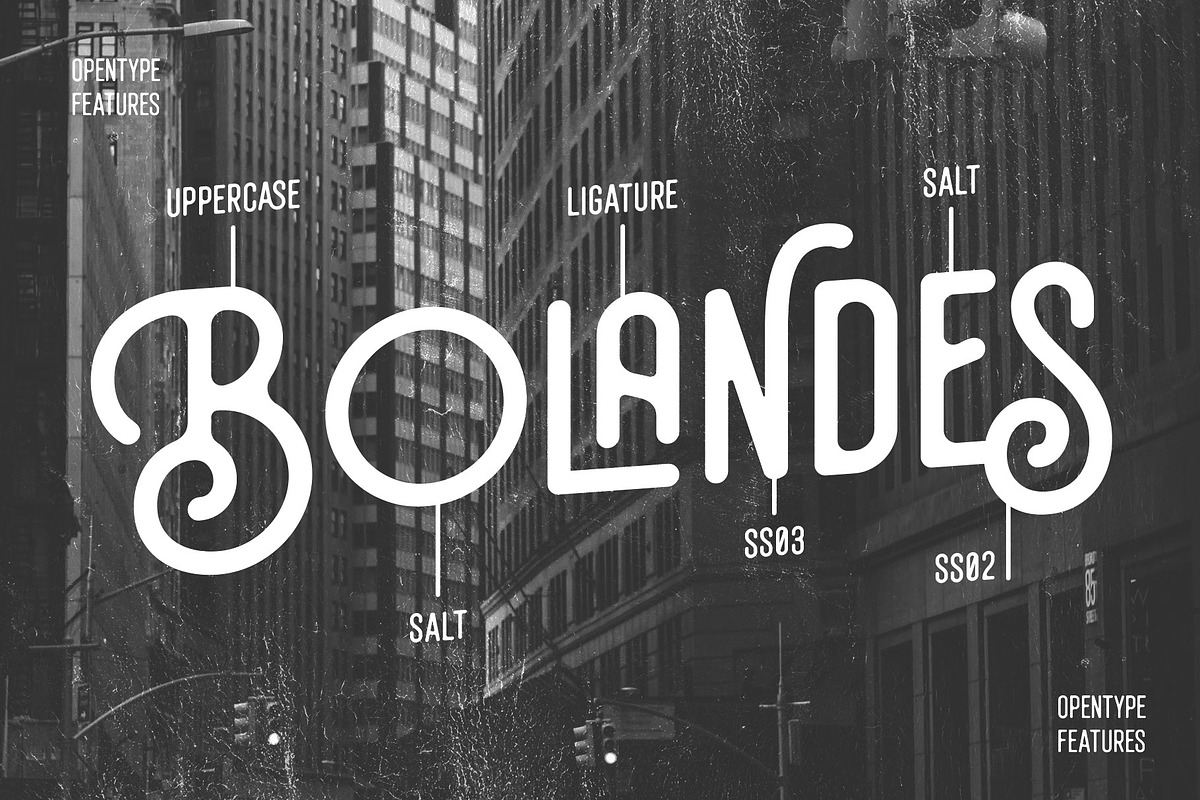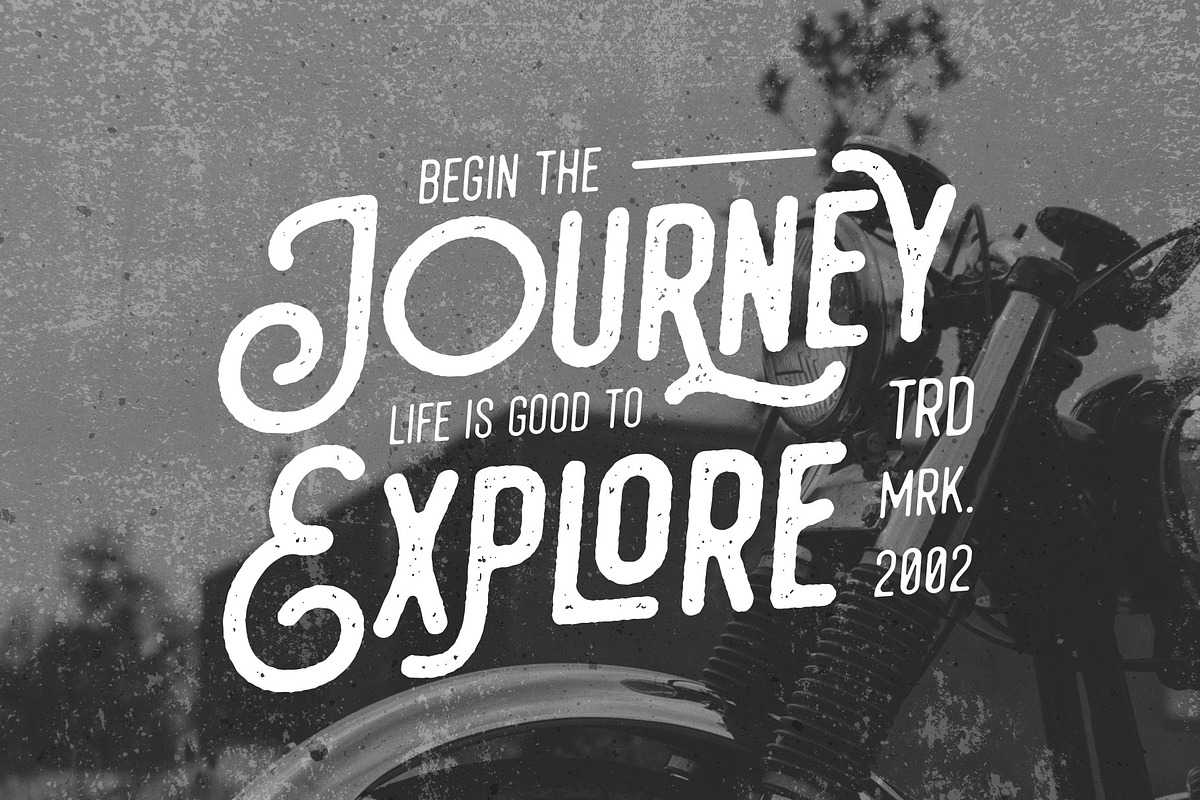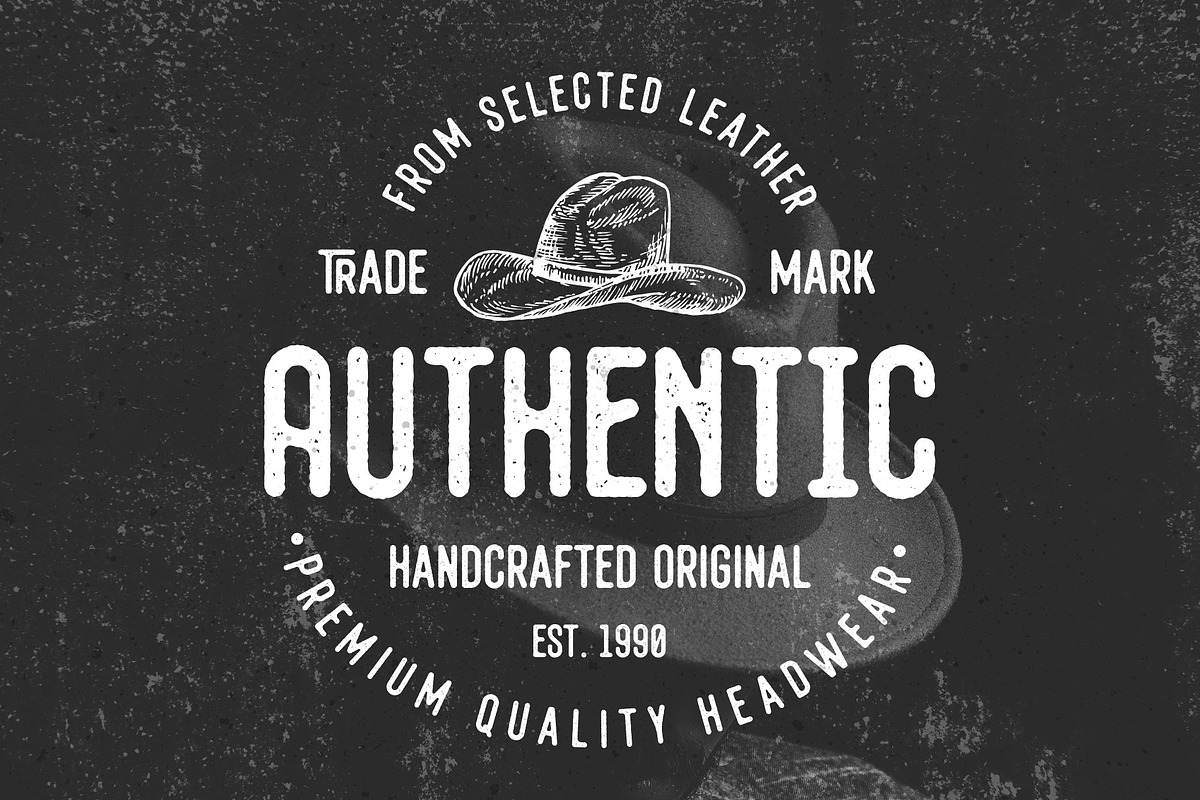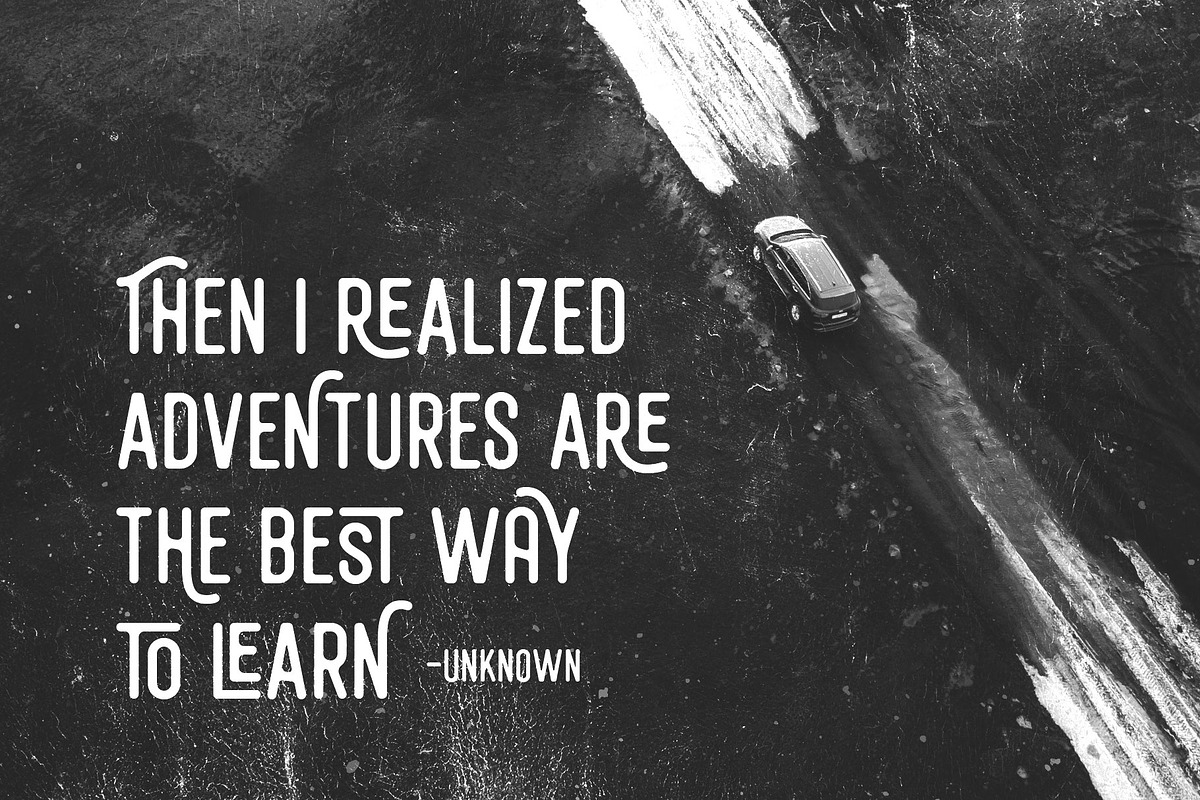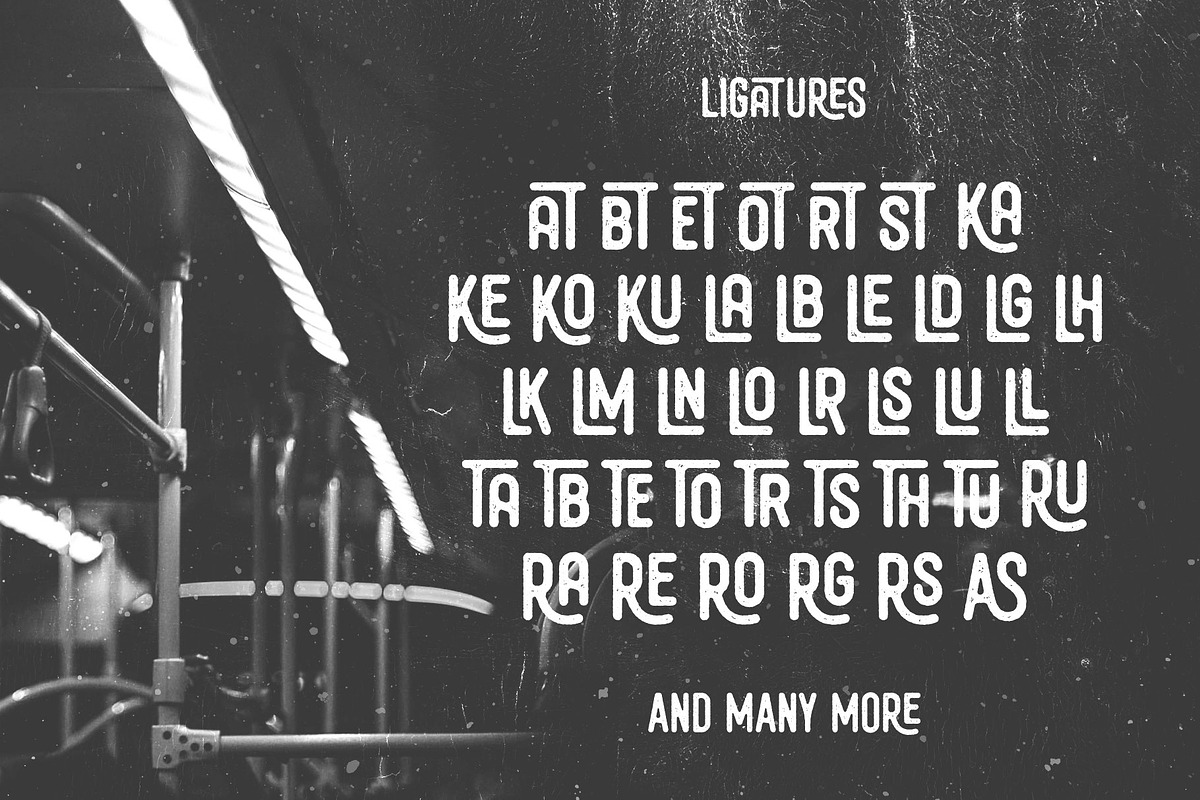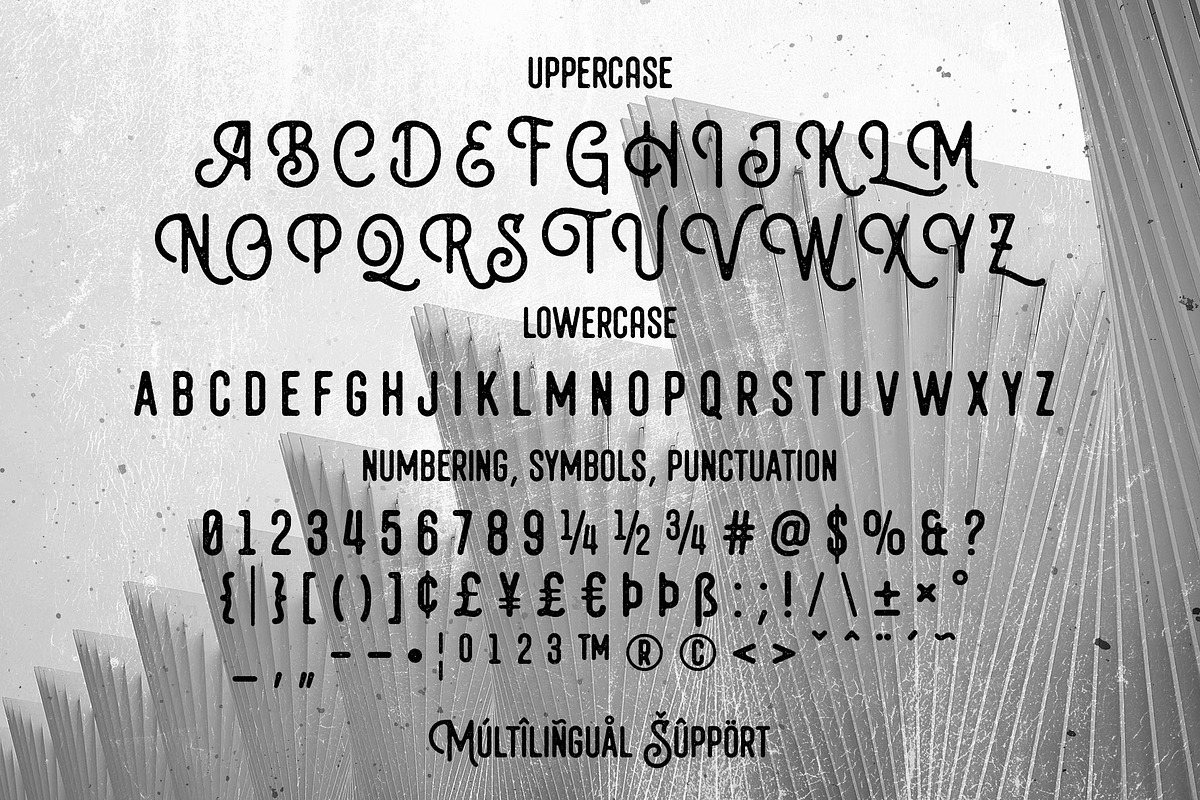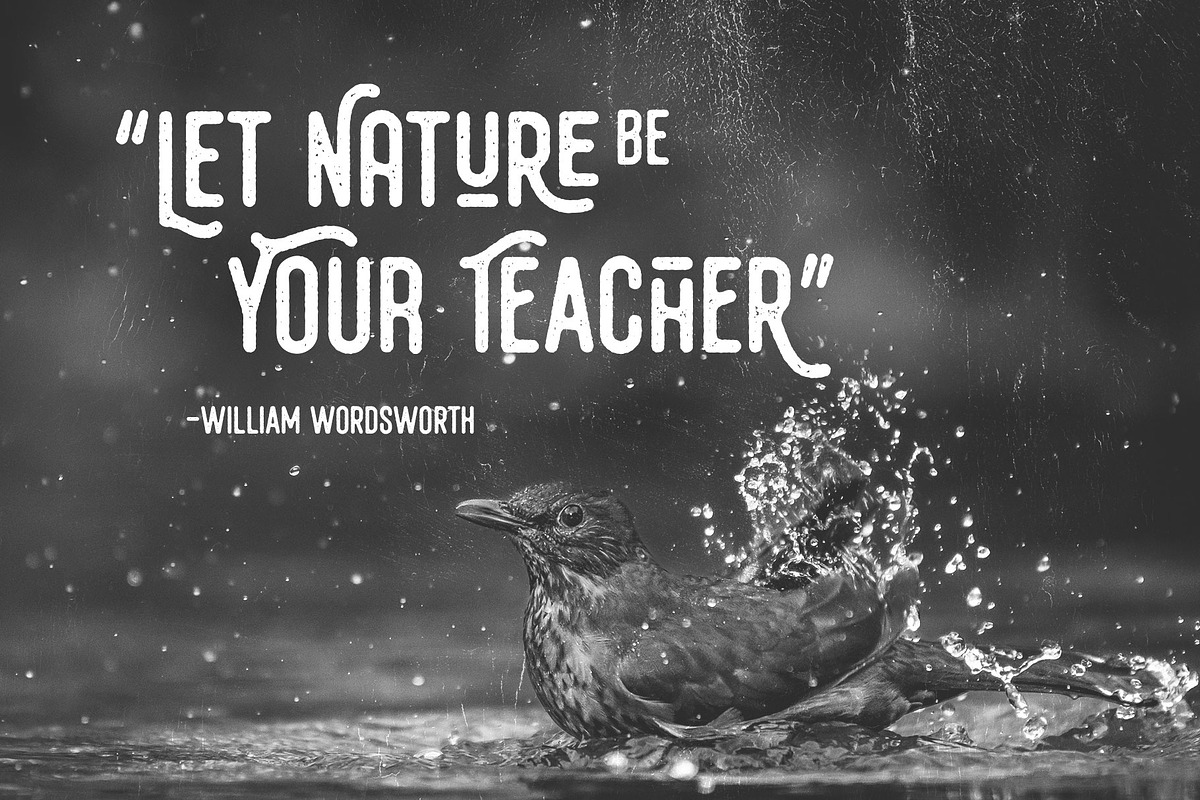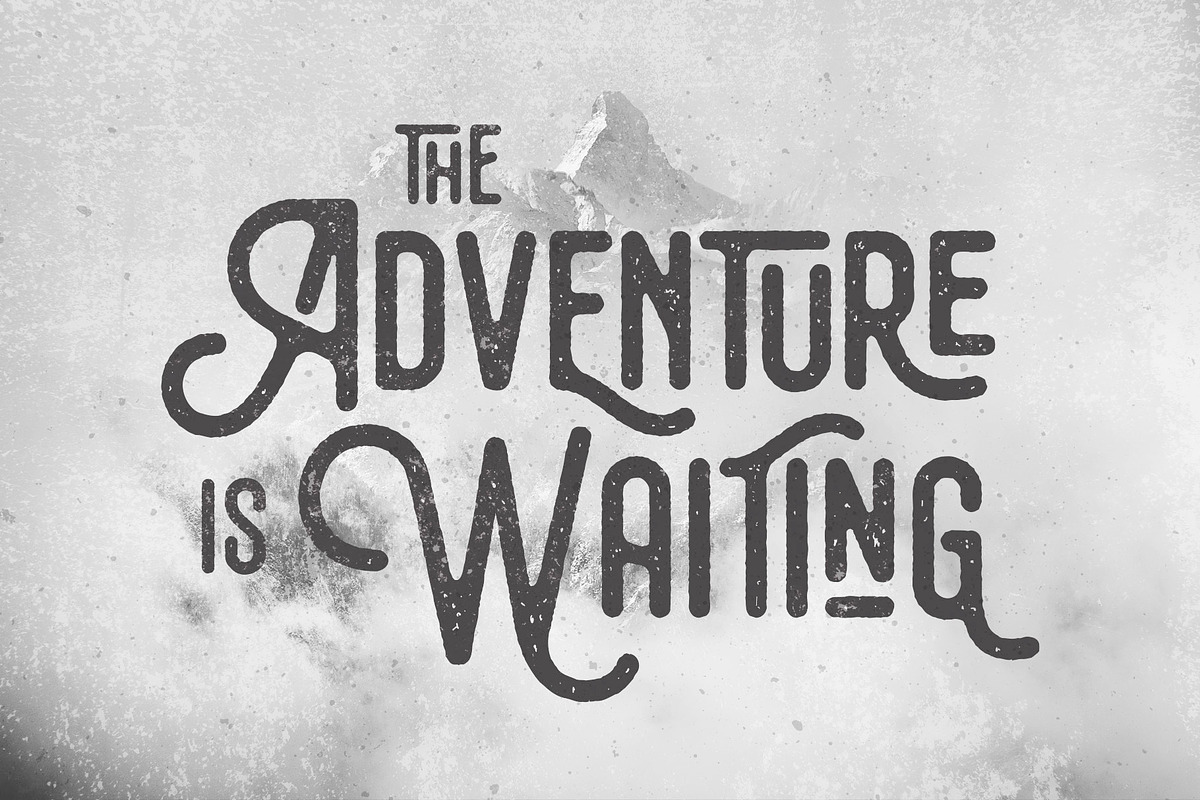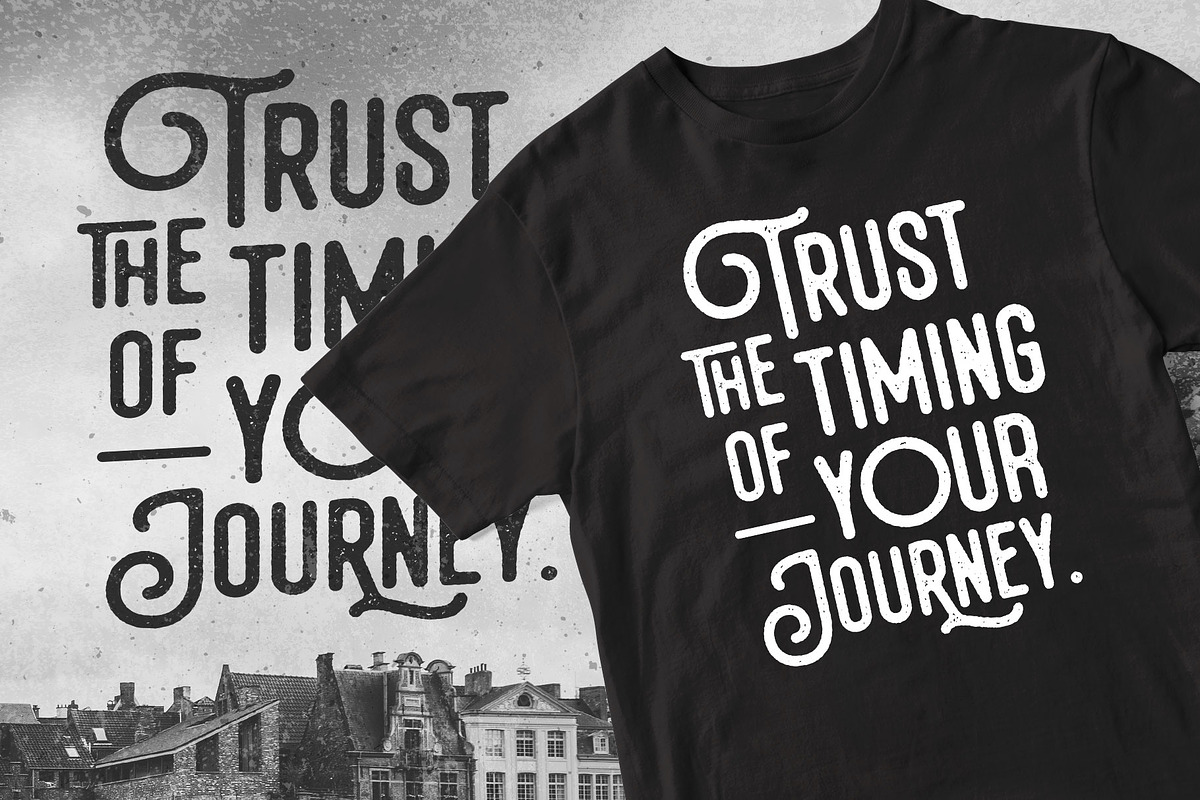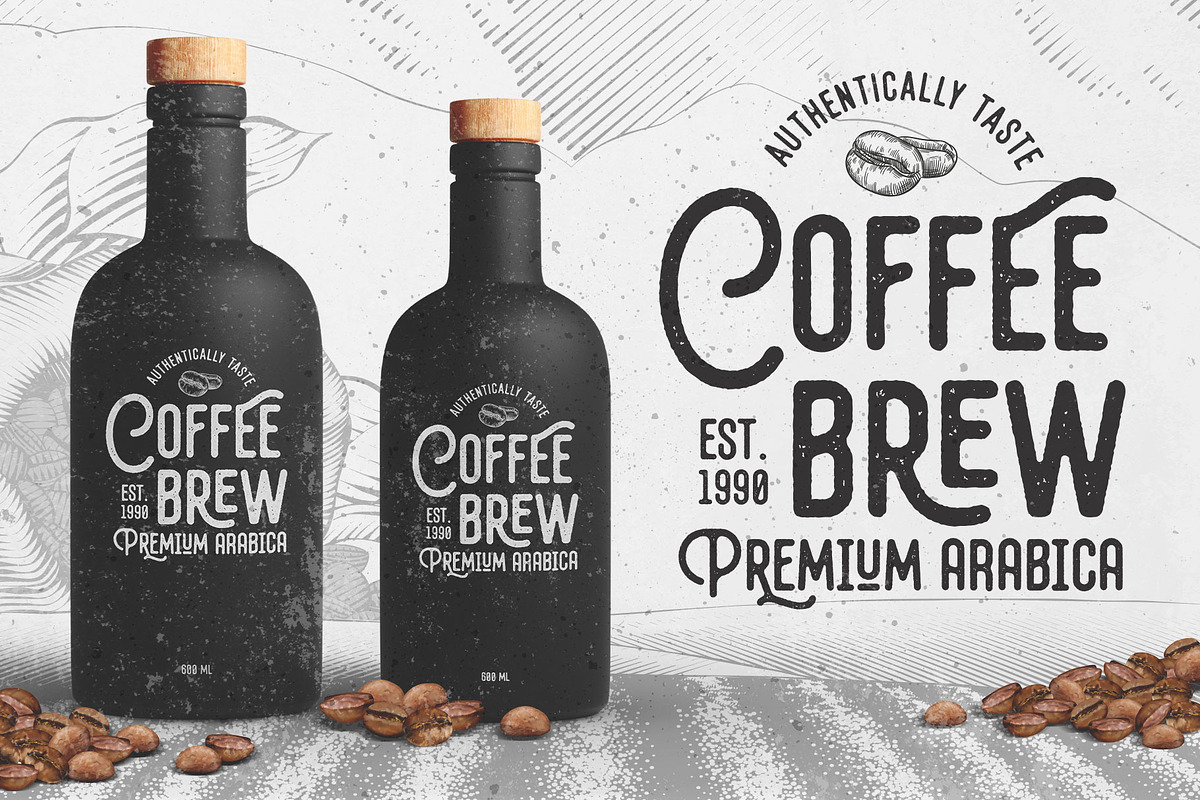
Bolandes - Vintage Monoline
Introducing Bolandes, a handcrafted vintage monoline font, inspired by the vintage signage which visualizes a letterpress/inky looks and modern calligraphy. Perfect for logos, apparel, labels, posters, quotes, signage, packaging, and more!
This font is all-caps font, recommended for displays. Bolandes has 340+ glyphs including many OpenType features that you can mix and match each character to get the more playful vintage typographic design. Available in three styles: Light, Bold, Aged.
- Smallcaps
- SS01 - SS06
- Custom Ligatures